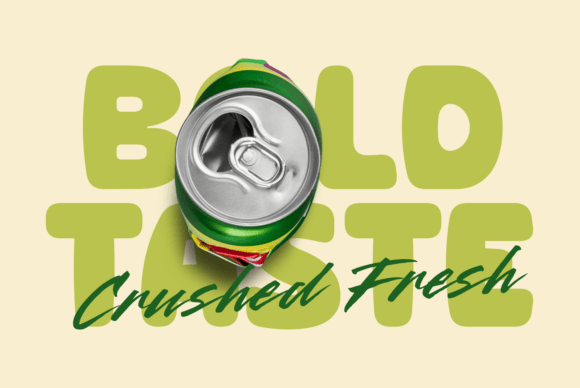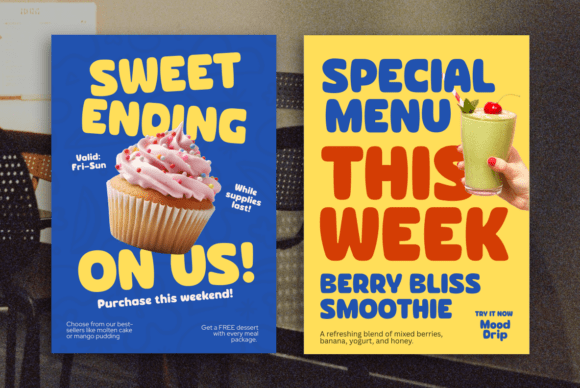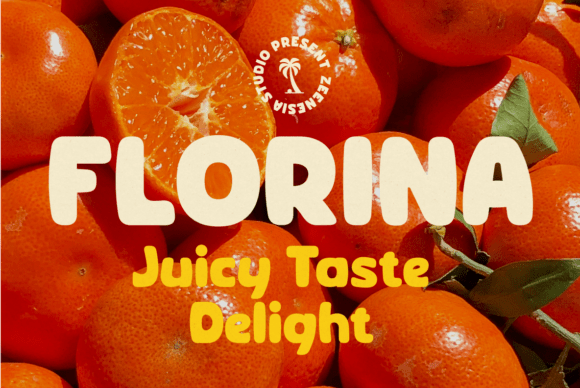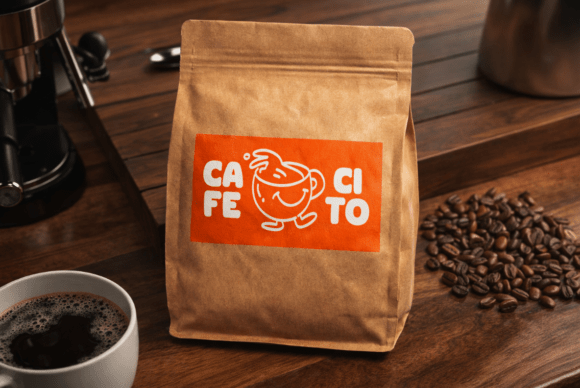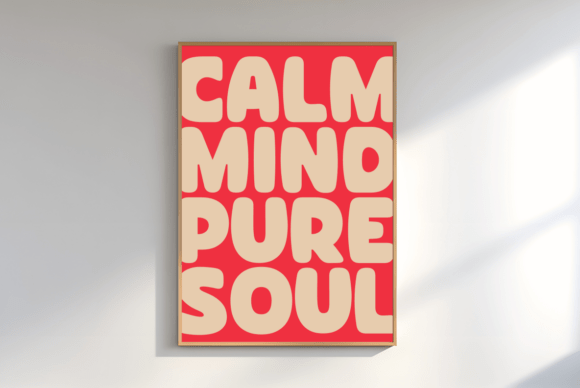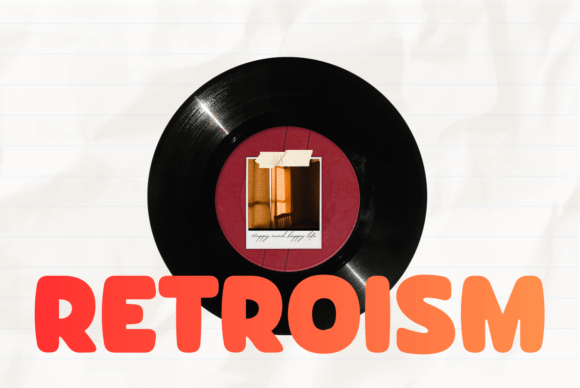
Introducing Corva Round Font: The Perfect Blend of Bold and Friendly
In the world of typography, fonts play a crucial role in conveying the tone and personality of a brand. For designers and crafters, finding the right font can make all the difference in creating visually appealing and effective designs. Corva Round Font is a modern rounded display font that has been gaining popularity for its unique blend of bold structure and smooth, friendly curves. In this article, we’ll dive into the features and benefits of Corva Round Font, and explore how it can elevate your design projects.
What is Corva Round Font?
Corva Round Font is a carefully crafted display font that combines the best of both worlds – bold and playful. Its clean and modern style makes it perfect for creating eye-catching typography, while its friendly curves add a touch of approachability. This font is designed to work beautifully for a variety of design projects, including branding, headlines, packaging, and digital design.
Key Features of Corva Round Font
• Bold Structure: Corva Round Font boasts a bold and sturdy structure that makes it perfect for headlines and titles.
• Smooth Curves: The font’s smooth and friendly curves add a touch of playfulness and approachability.
• Clean and Modern Style: Corva Round Font has a clean and modern style that works well for a variety of design projects.
• Versatile: This font is perfect for branding, headlines, packaging, and digital design projects.
Benefits of Using Corva Round Font
So, why should you choose Corva Round Font for your design projects? Here are just a few benefits:
• Grabs Attention: The bold structure and smooth curves of Corva Round Font make it perfect for grabbing attention and creating eye-catching typography.
• Conveys Friendly Tone: The font’s friendly curves and clean style convey a friendly and approachable tone, making it perfect for brands that want to appear approachable and welcoming.
• Versatile: Corva Round Font works beautifully for a variety of design projects, making it a versatile addition to your font library.
How to Use Corva Round Font
Corva Round Font is easy to use and can be applied to a variety of design projects. Here are a few ideas to get you started:
• Branding: Use Corva Round Font as a logo font or for typography in your brand’s marketing materials.
• Headlines: Use the font for headlines and titles in your designs to grab attention and create visual interest.
• Packaging: Corva Round Font works beautifully for packaging design, adding a touch of modernity and friendliness to your product packaging.
• Digital Design: Use the font for digital design projects, such as website headers, social media graphics, and more.
Tips for Pairing Corva Round Font with Other Fonts
Pairing Corva Round Font with other fonts can create a unique and visually appealing typography. Here are a few tips for pairing Corva Round Font with other fonts:
• Pair with Sans-Serif Fonts: Pair Corva Round Font with sans-serif fonts, such as Open Sans or Lato, for a clean and modern look.
• Pair with Serif Fonts: Pair the font with serif fonts, such as Merriweather or Georgia, for a more traditional and elegant look.
• Experiment with Font Sizes: Experiment with different font sizes to create visual interest and hierarchy in your designs.
Corva Round Font is a modern rounded display font that offers a unique blend of bold structure and smooth, friendly curves. Its clean and playful style makes it perfect for creating eye-catching typography, while its versatility makes it suitable for a variety of design projects. Whether you’re a designer or crafter, Corva Round Font is a great addition to your font library. With its many benefits and uses, it’s no wonder that Corva Round Font is quickly becoming a popular choice among designers and crafters.